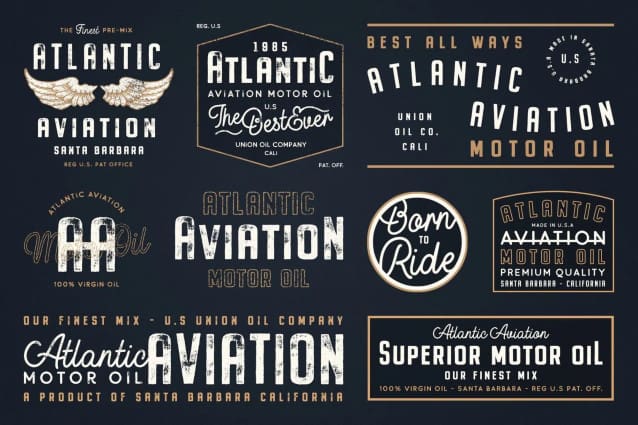
Buckwheat Font
Buckwheat Fonts, Collection Each font in the all-new Buckwheat Collection has been carefully crafted to be timeless, ultra-versatile, and easily mounted. An essential set to use over and over again for any number of design projects; from clean and modern, to rough and organic.